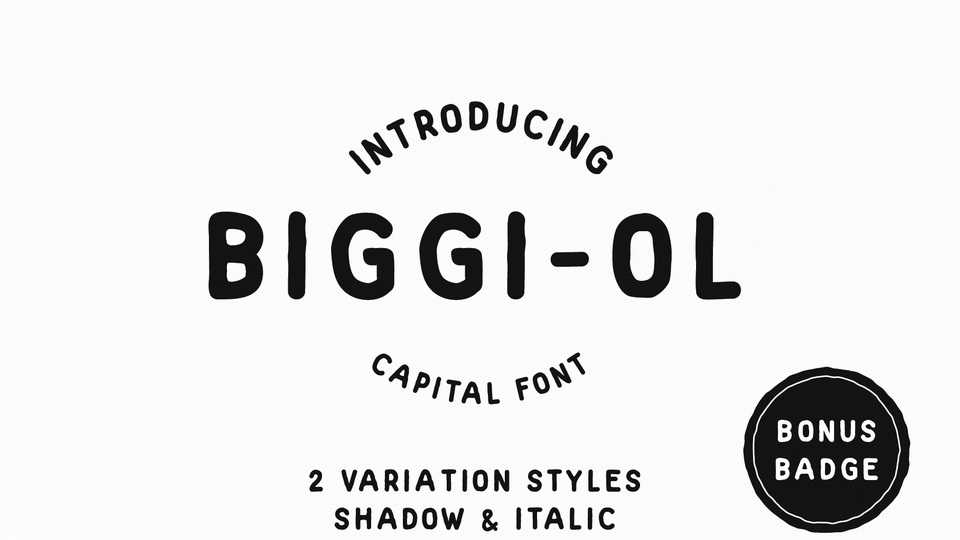
Download Boggi Ol font, an all caps font with old and vintage feeling. Boggi Ol comes in irregular shapes that bring an authentic handwriting and eroded touch.
Designer: Mehibi